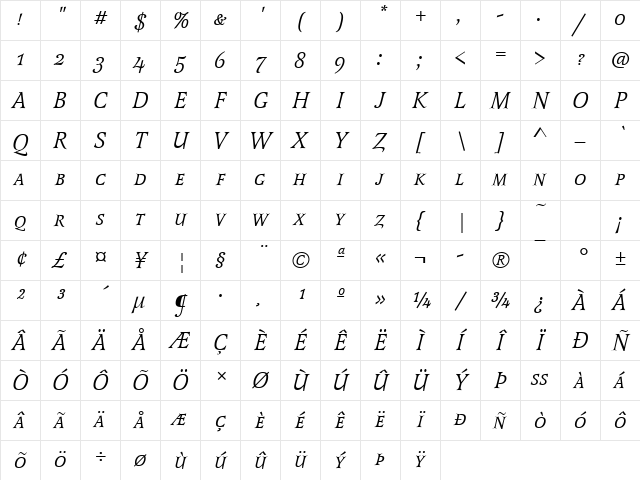
LatienneSCTReg Italic
Design Context for LatienneSCTReg
LatienneSCTReg is a composed and adaptable typeface that performs quietly and consistently across a wide range of design contexts. The slanted form adds forward momentum and visual energy.
Pro Tip: Use LatienneSCTReg for emphasis, pull quotes, and subheadings where its slanted energy can add rhythm to the layout.